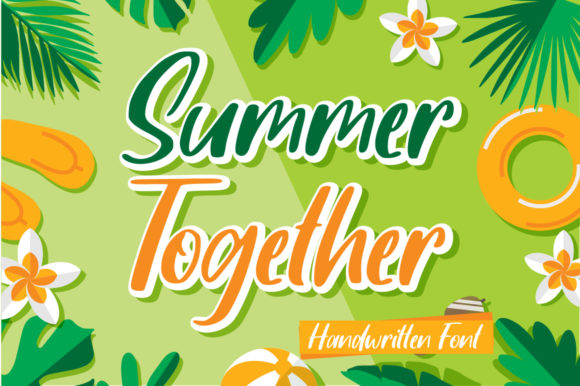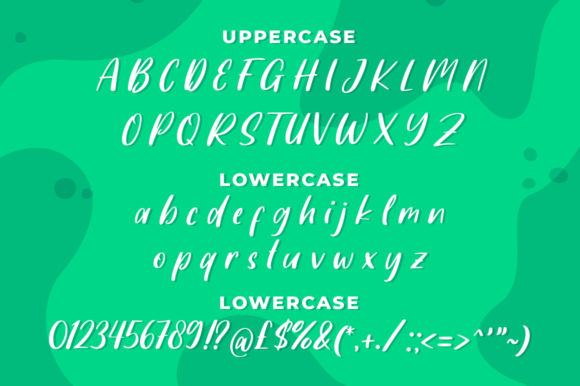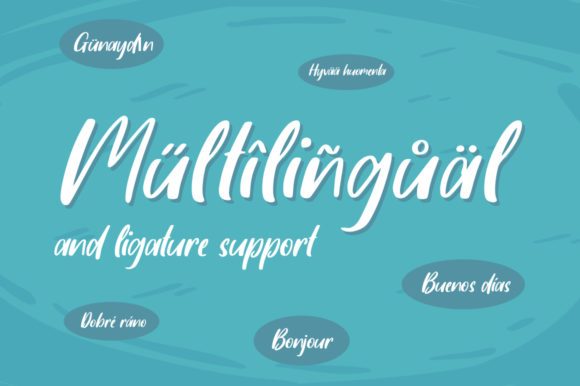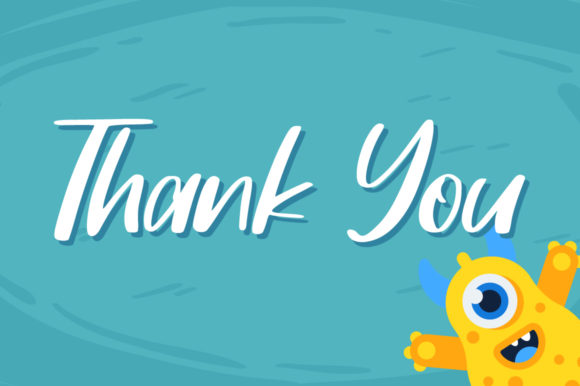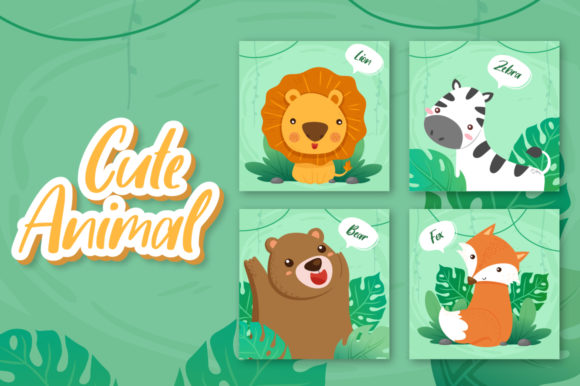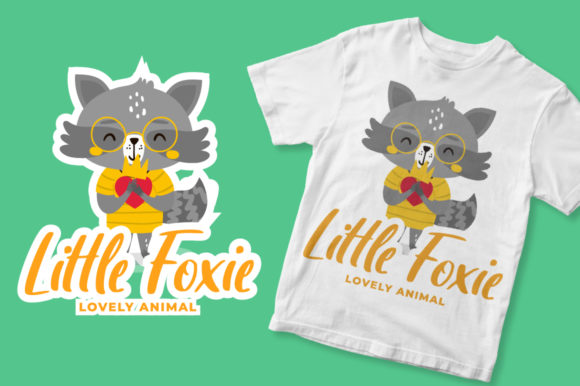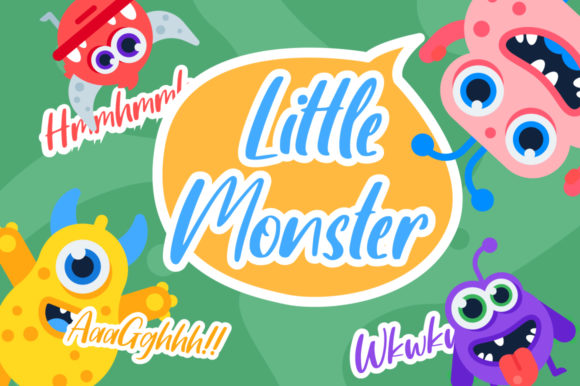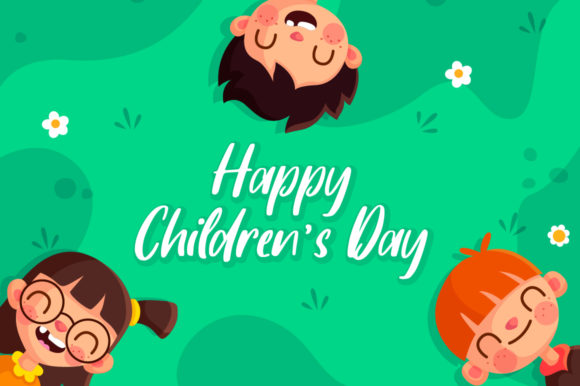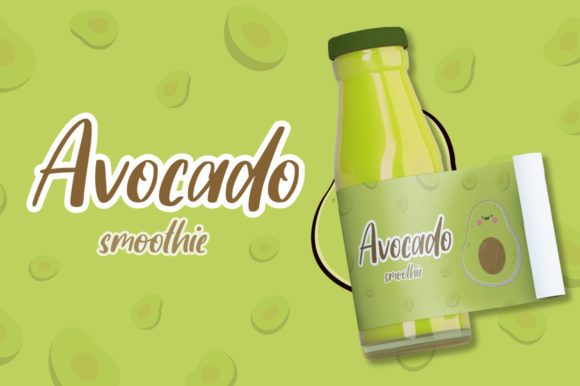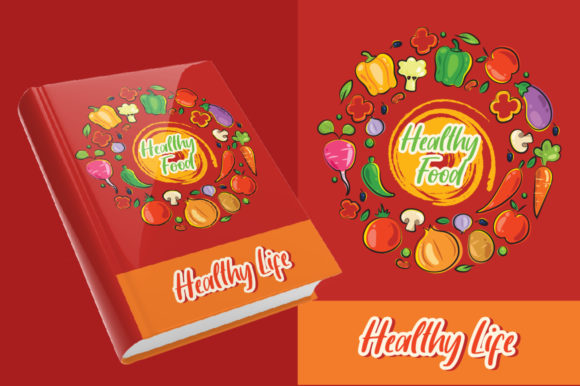
Summer Together Font
Summer Together is a sweet and colorful handwritten font. Add this font to your most creative summer related ideas and notice how it makes them alive!